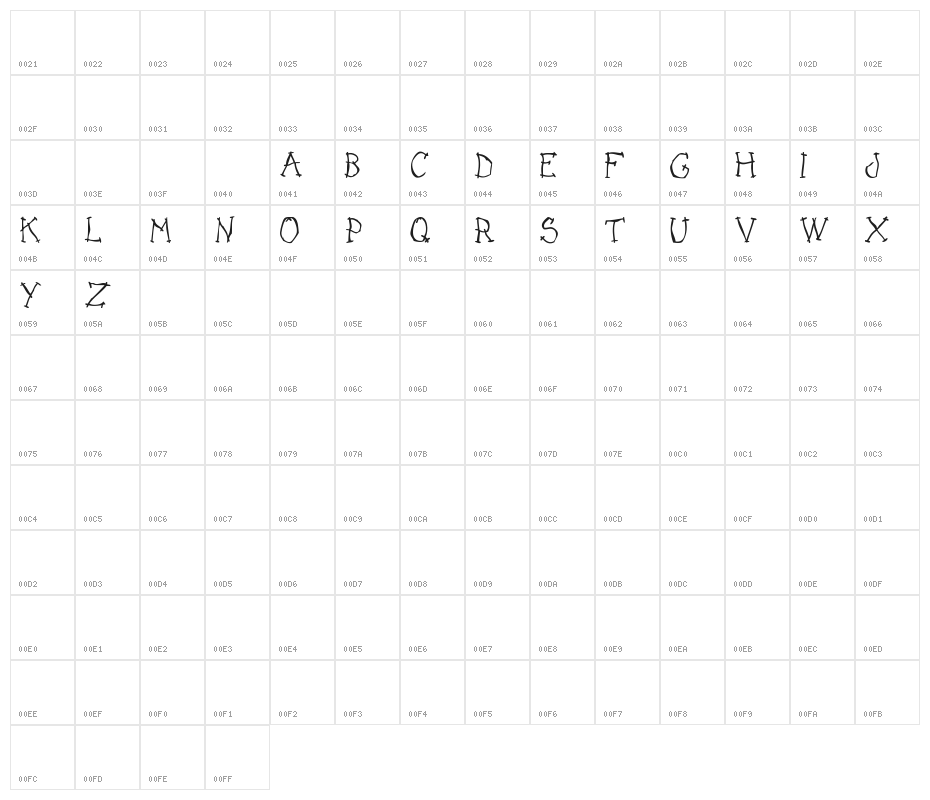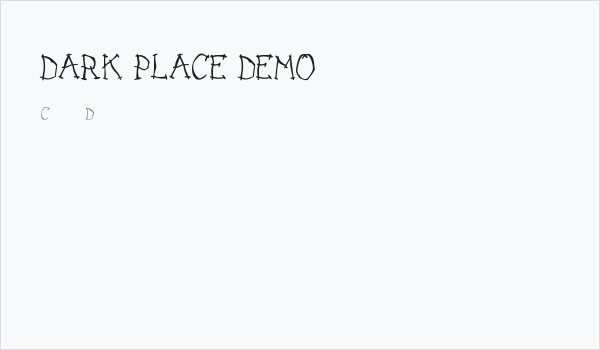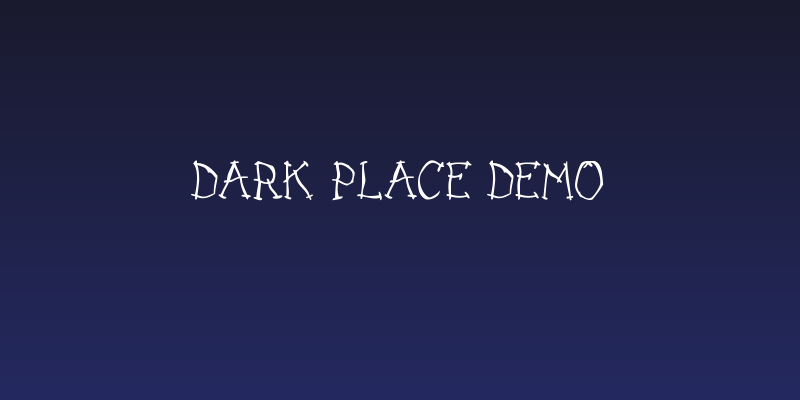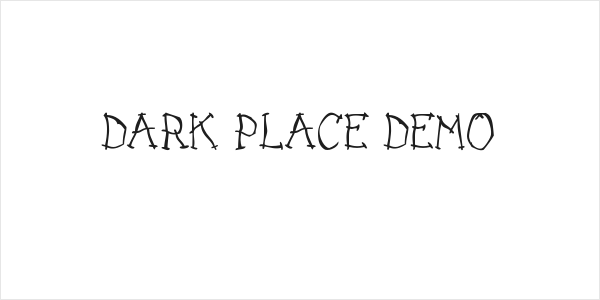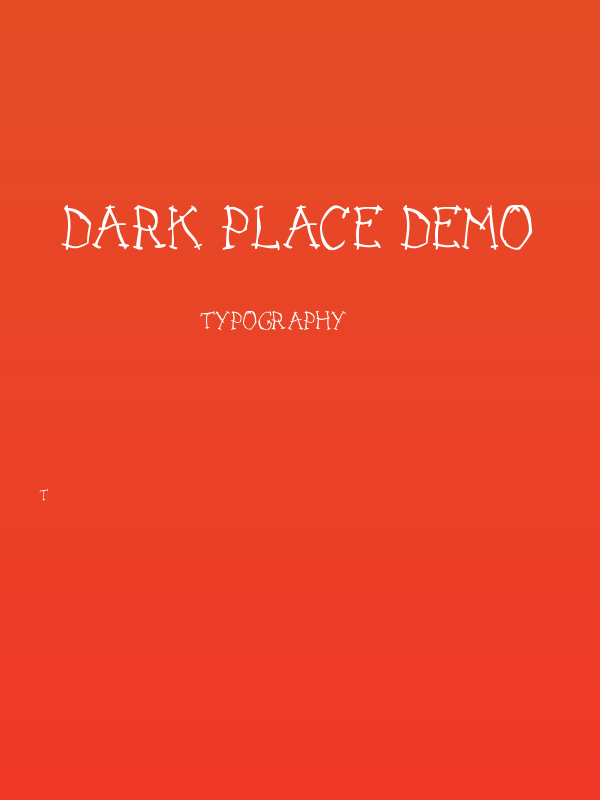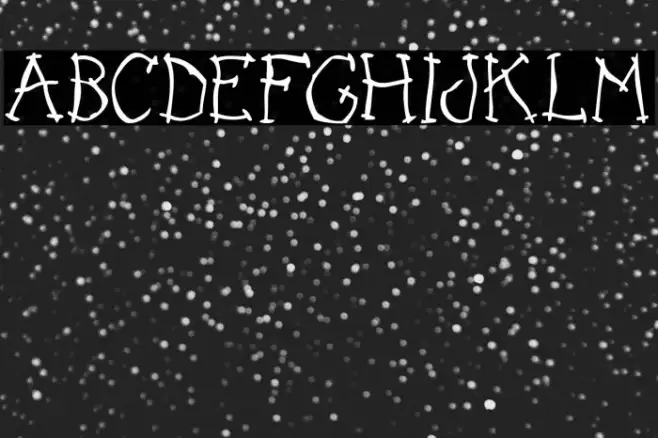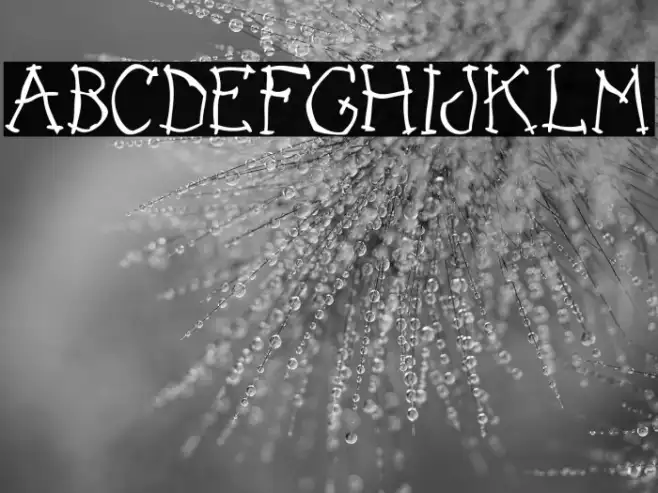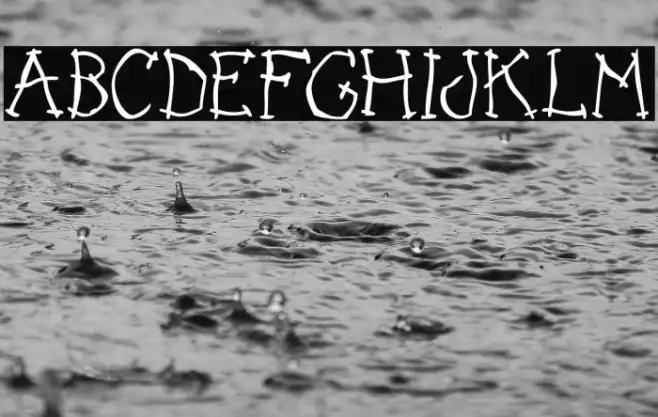
DARK PLACE_DEMO Font
DARK PLACE_DEMO Description
This font features a unique and decorative style with an edgy, gothic flair. Each character is adorned with arrow-like serifs and sharp, pointed ends, giving it a distinct, almost medieval appearance. The strokes are uneven, adding to its handcrafted look, while maintaining a consistent height across all characters. This font is particularly eye-catching and would stand out in any design that requires a bold, artistic touch. Its playful yet dark aesthetic makes it suitable for creative projects that aim to capture attention and convey a sense of mystery or fantasy.
| Overall Style | Gothic, Decorative |
| Proposed Projects | Ideal for Halloween-themed designs, fantasy book covers, video game titles, or any project needing a mysterious or medieval touch. |